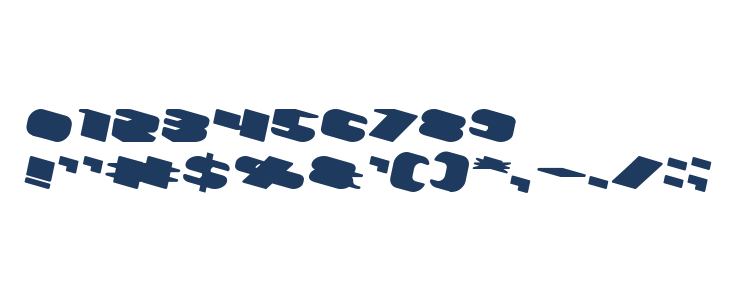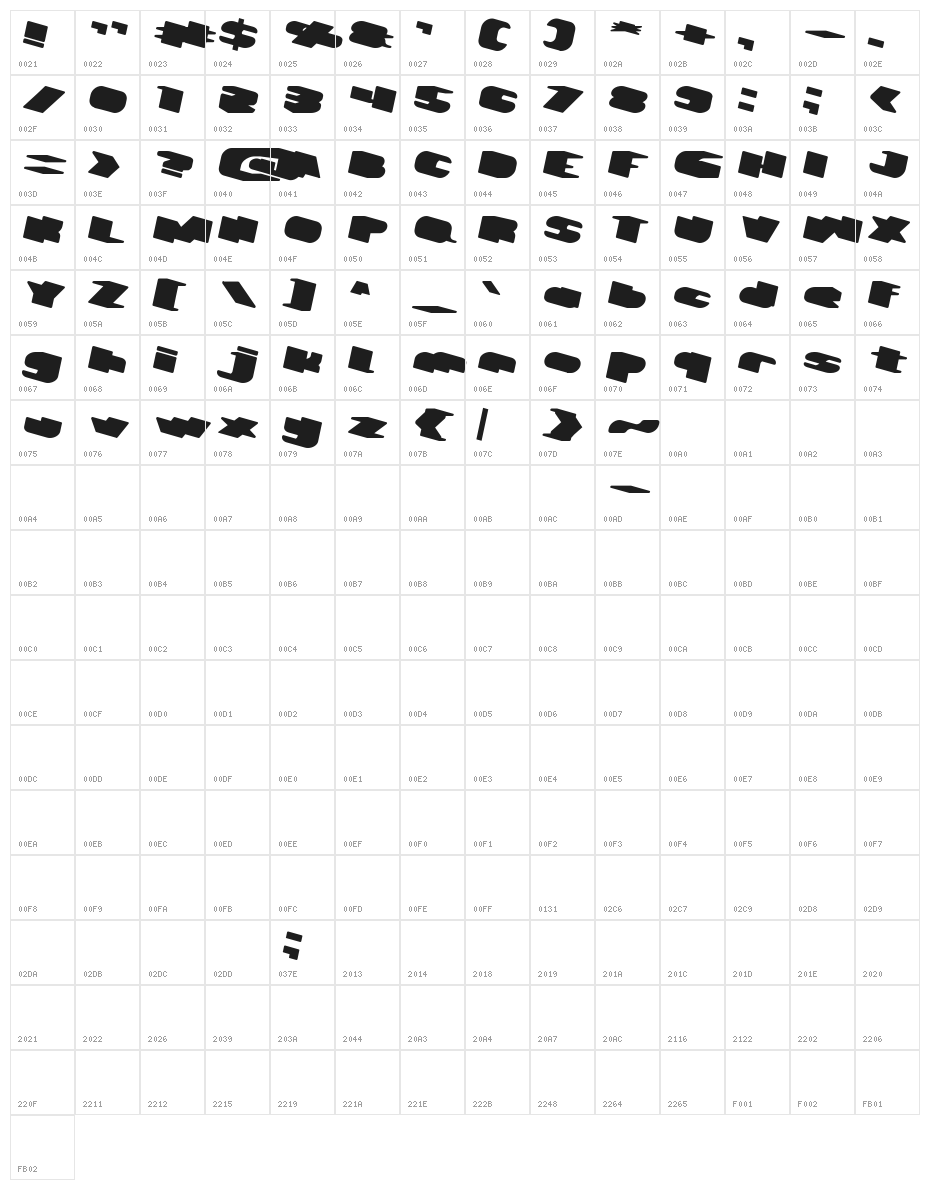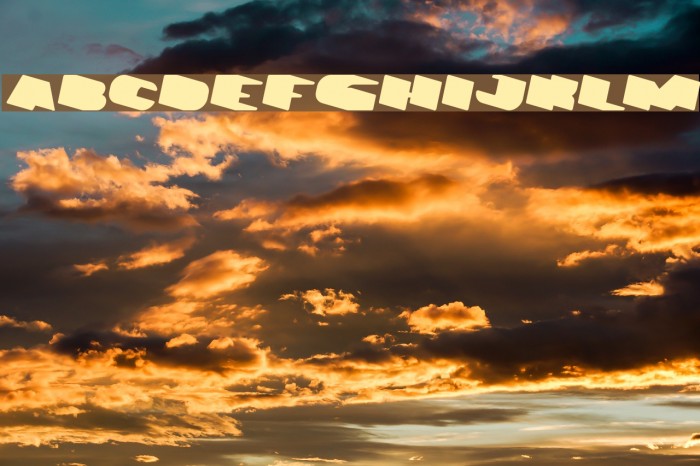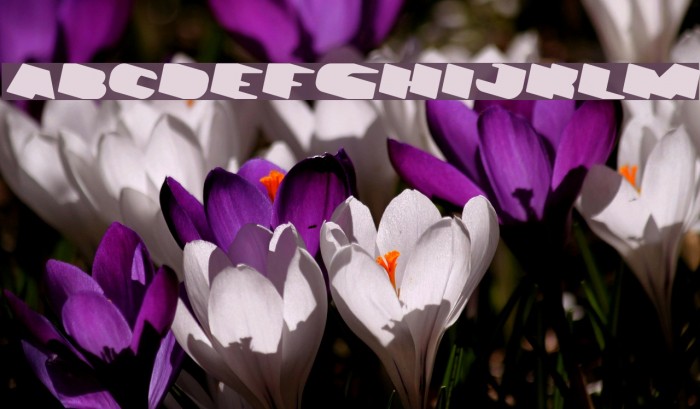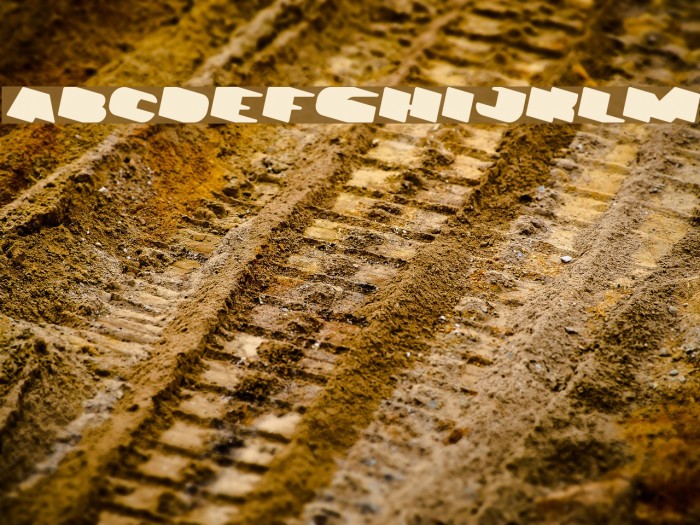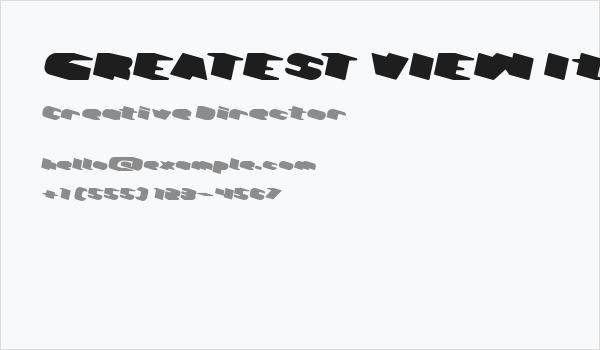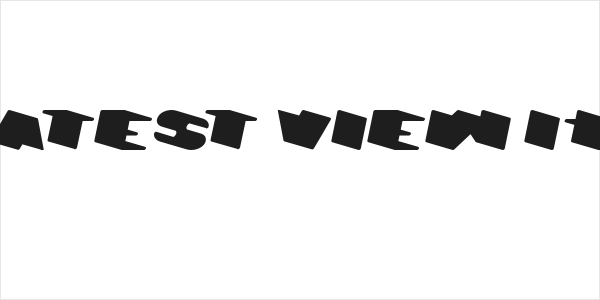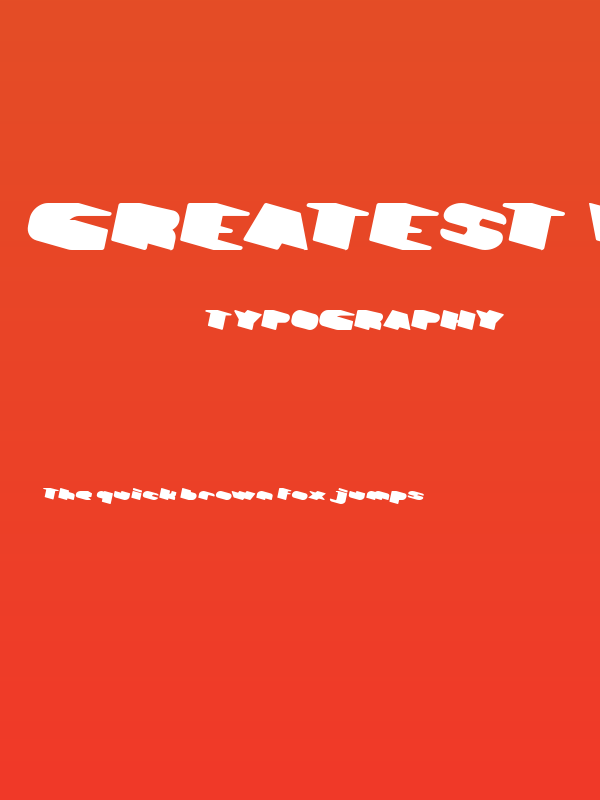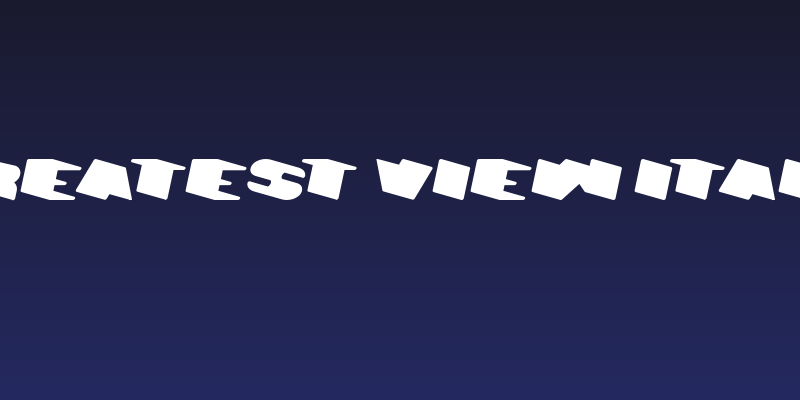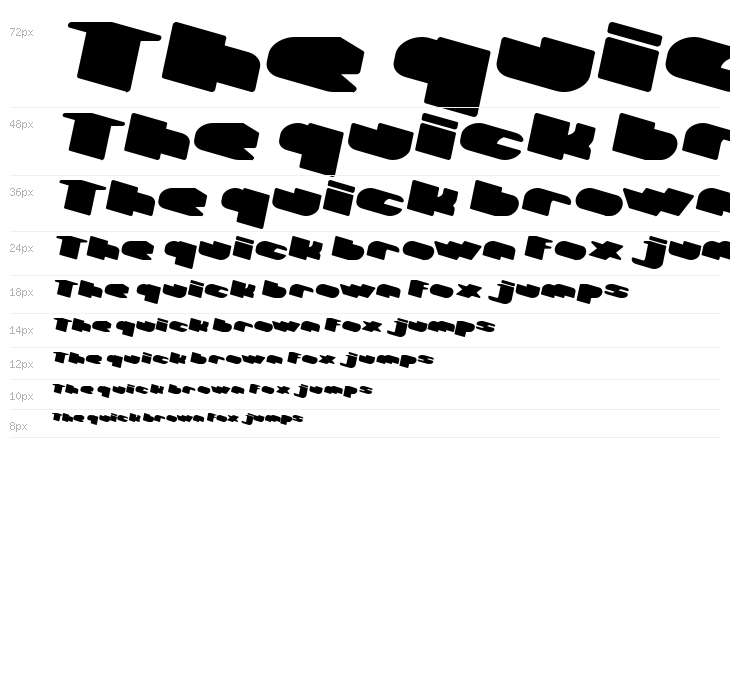
GREATEST VIEW Italic Font
GREATEST VIEW Italic Description
This font features a bold and dynamic style with a distinct italic slant, creating a sense of movement and energy. The characters are heavily stylized with sharp angles and unique cuts, giving them a modern and edgy appearance. The uppercase and lowercase letters maintain a consistent design, while the numbers and special characters integrate seamlessly into the overall aesthetic. The boldness of the strokes and the angular design make it stand out, suitable for attention-grabbing headlines or creative projects. The font's unique style is both contemporary and artistic, making it versatile for various design needs.
| Proposed Projects | Ideal for posters, album covers, branding, and any project requiring a bold statement. |